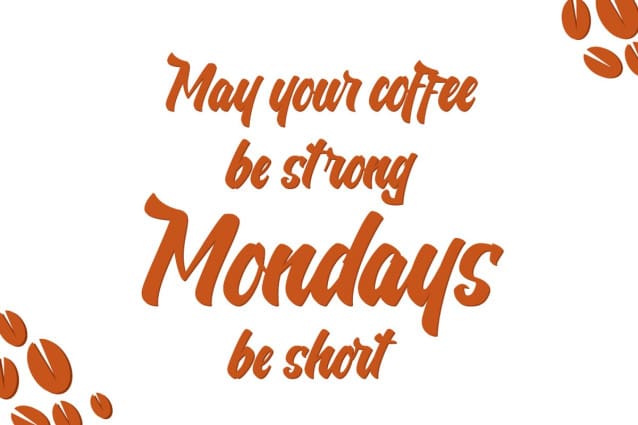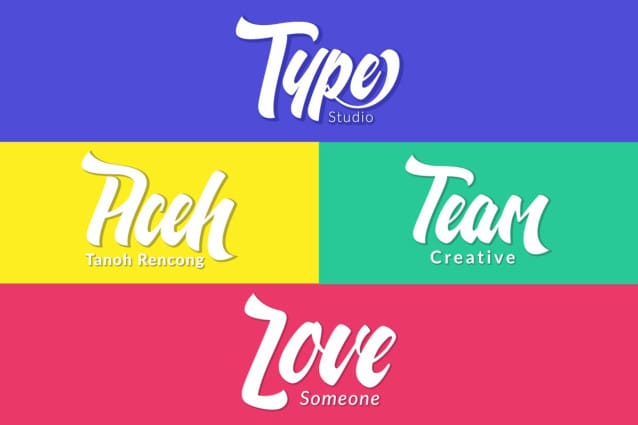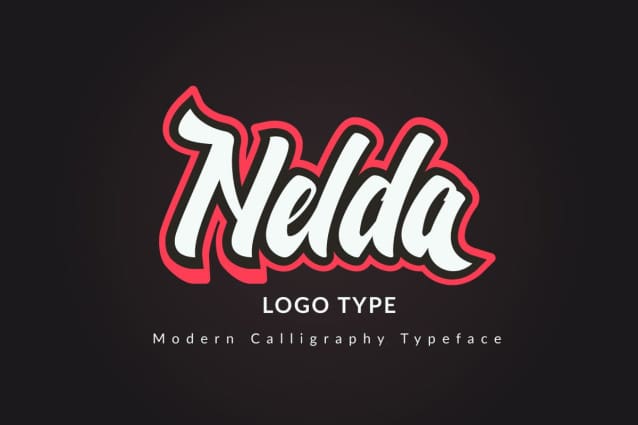
Nelda Script Font
Nelda Script Font is bold, playful, and modern. It is suitable for a logo, packaging, headline, poster, t-shirt, etc.
With 311 glyphs and 131 alternatives characters, you can mix and match Nelda to fit your design. The alternative characters divided into several OpenType features such as Ligature, Contextual alternates, stylistic sets, and swash. It can be accessed by using OpenType savvy programs such as Adobe Illustrator and Adobe InDesign.